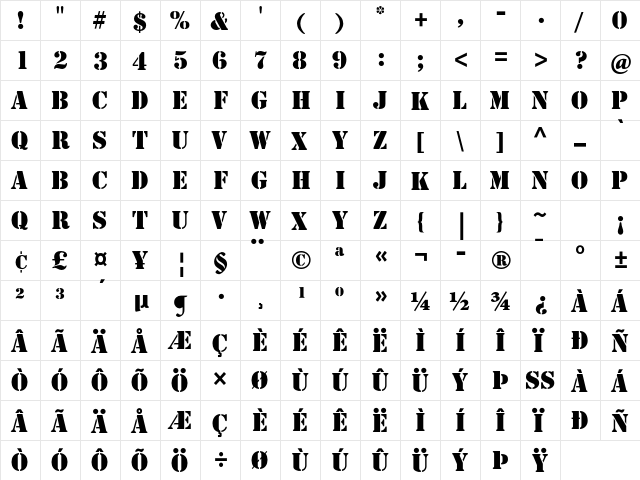
Stencil Std Bold
| Designer | Gerry Powell |
Design Context for Stencil Std Typeface
Stencil Std borrows the utilitarian aesthetic of stencil lettering, with its characteristic cutaways and no-frills construction lending an industrial edge. Its bold stroke weight gives it real presence on the page.
A strong choice for packaging that needs edge, warehouse aesthetics, and rough-and-ready visual identities.
Pro Tip: Use Stencil Std at large sizes on packaging, posters, or apparel where the stencil cutaways read clearly. Avoid small sizes where those gaps become visual noise.